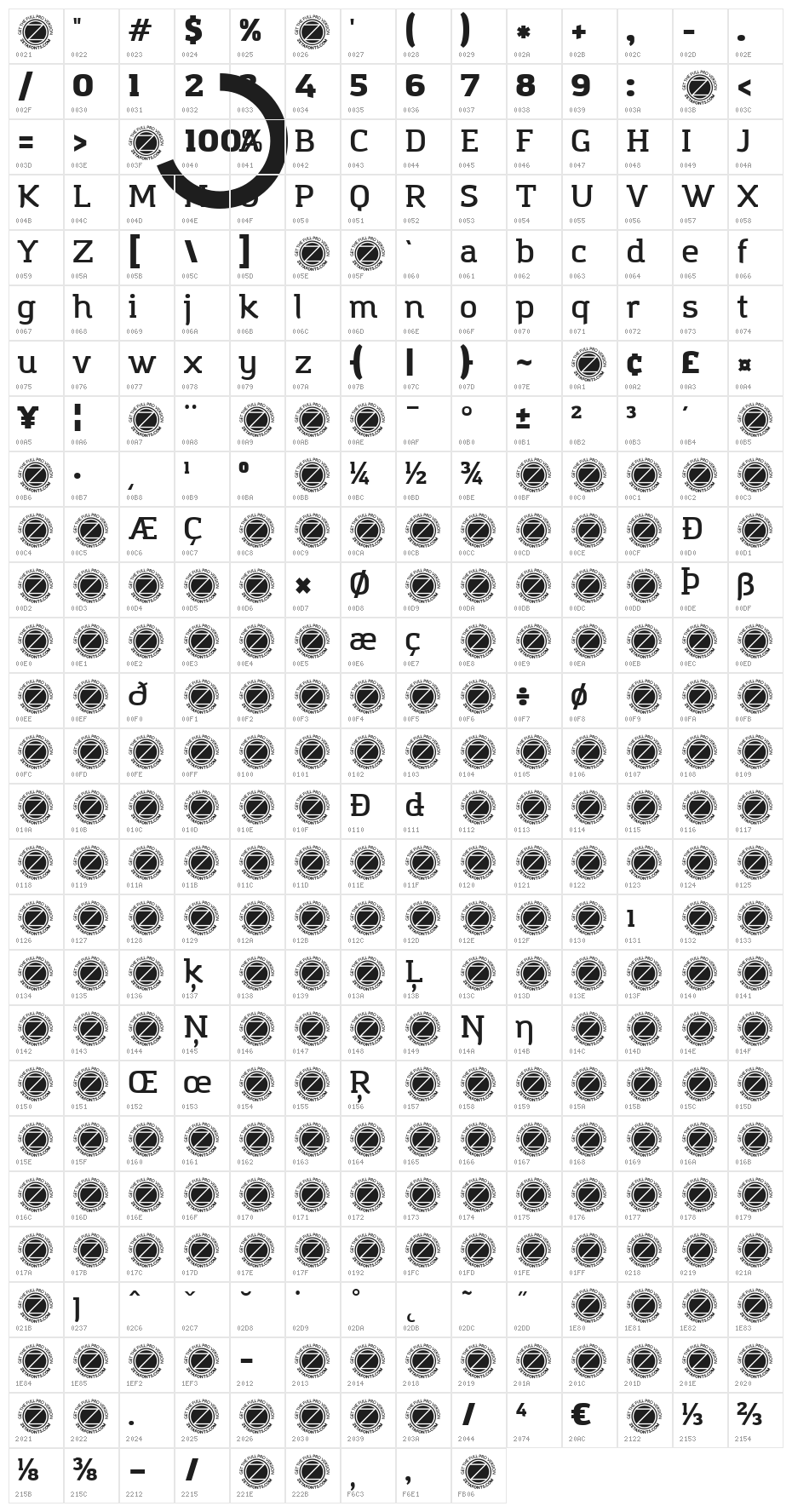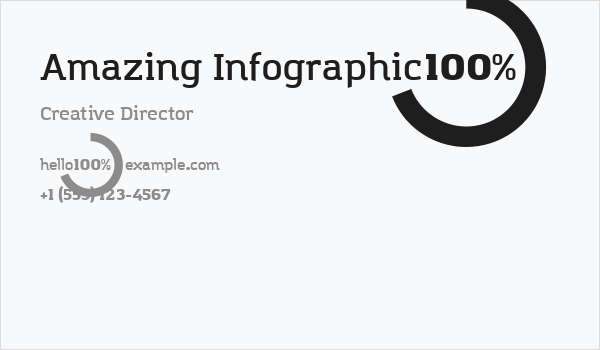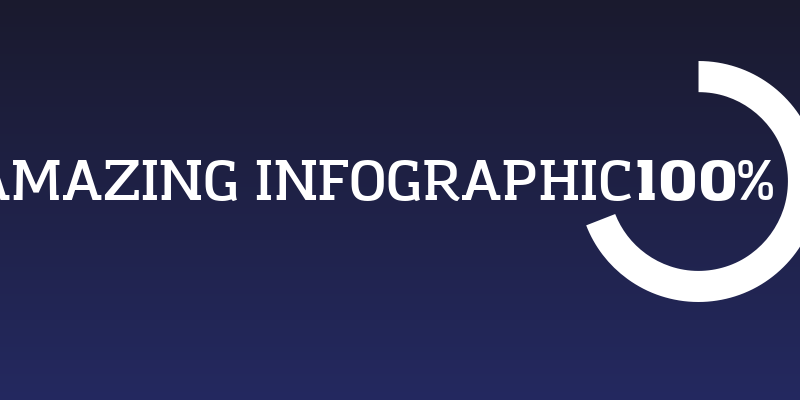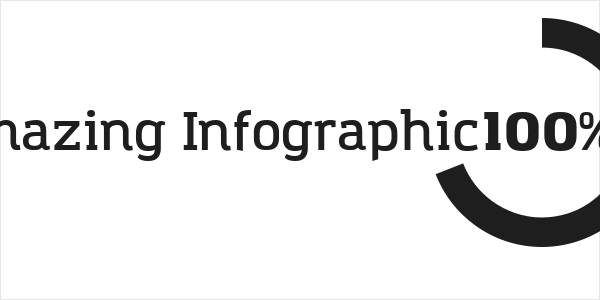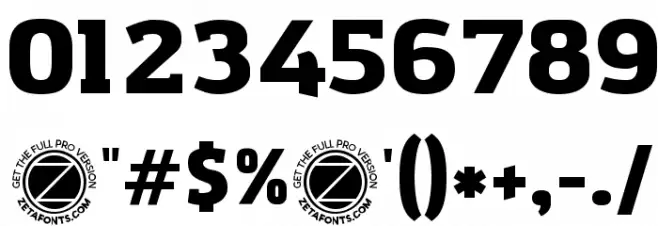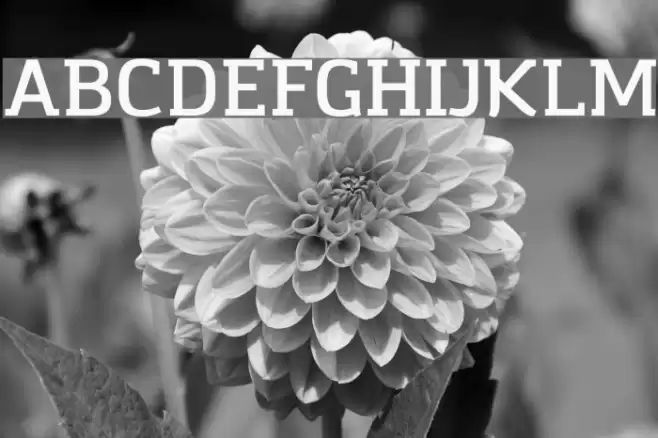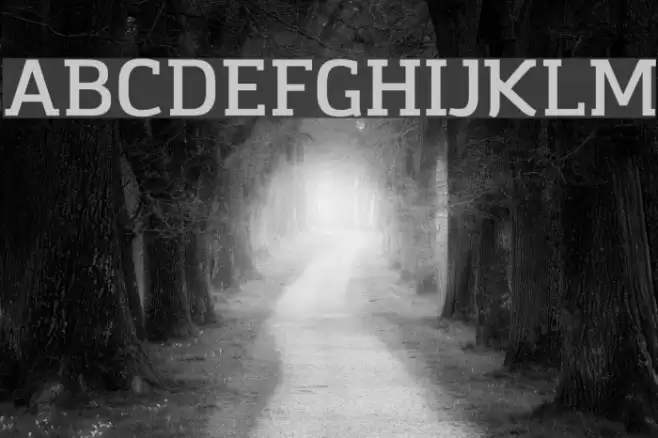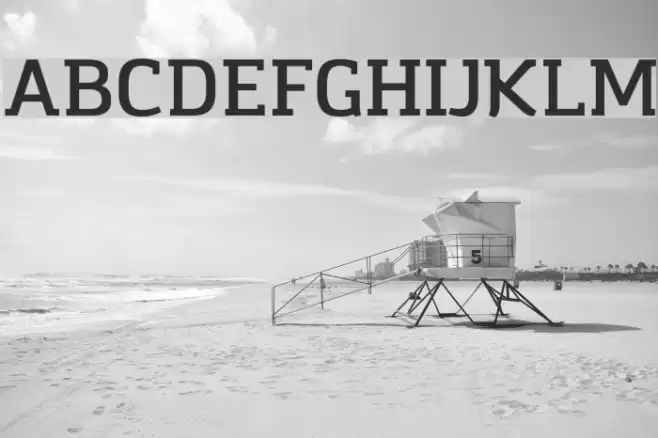
Amazing Infographic@ Font
Amazing Infographic@ Description
This font features a clean and modern design with a strong presence. The uppercase letters are bold and well-defined, while the lowercase letters maintain a consistent style that complements the uppercase. The numerals are clear and easy to read, making them suitable for various applications. Special characters are included, providing versatility for different uses. The overall appearance is professional and suitable for both digital and print media.
| Use Case | Headlines, Logos, Branding |
| Proposed Projects | Ideal for branding, advertising, headlines, and digital content. |